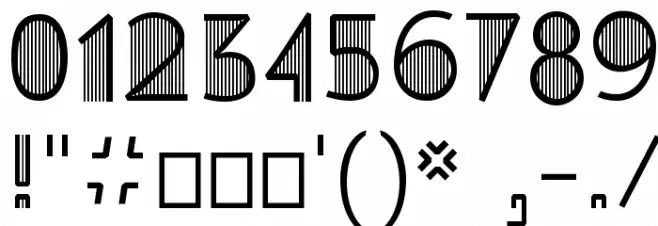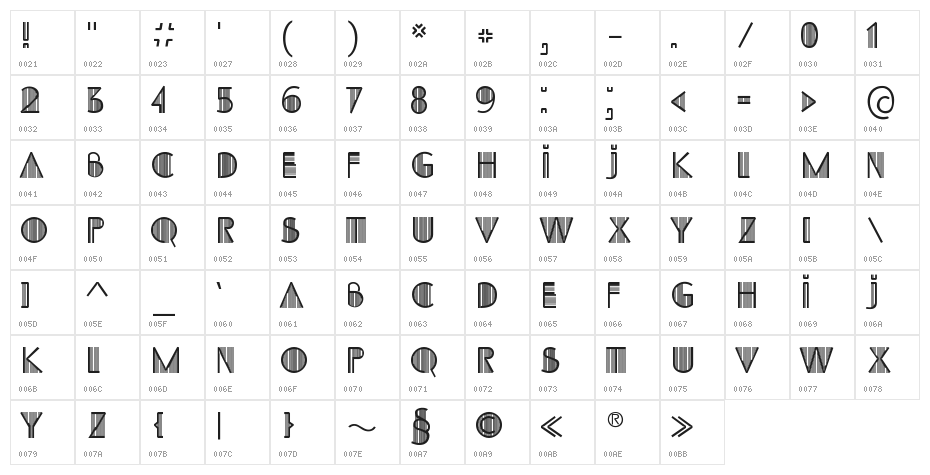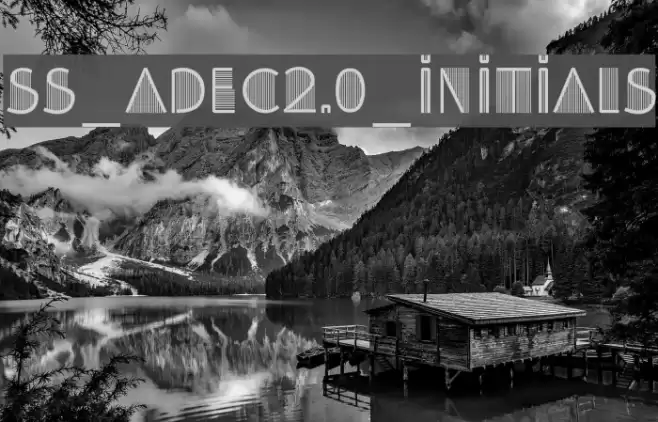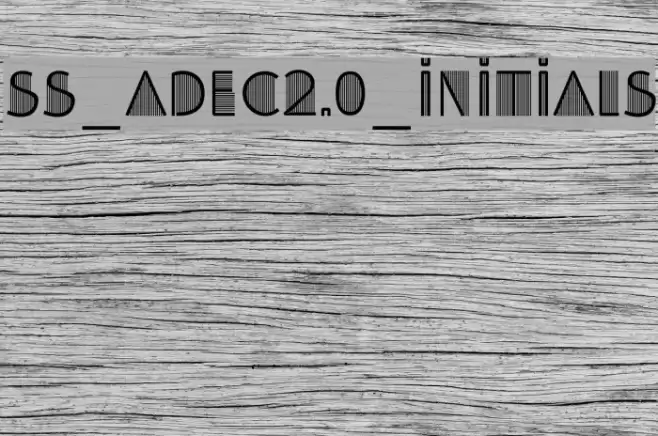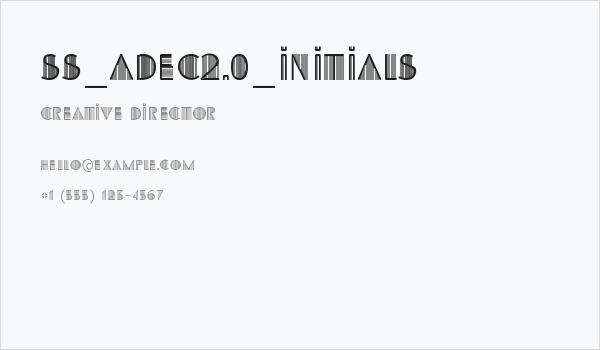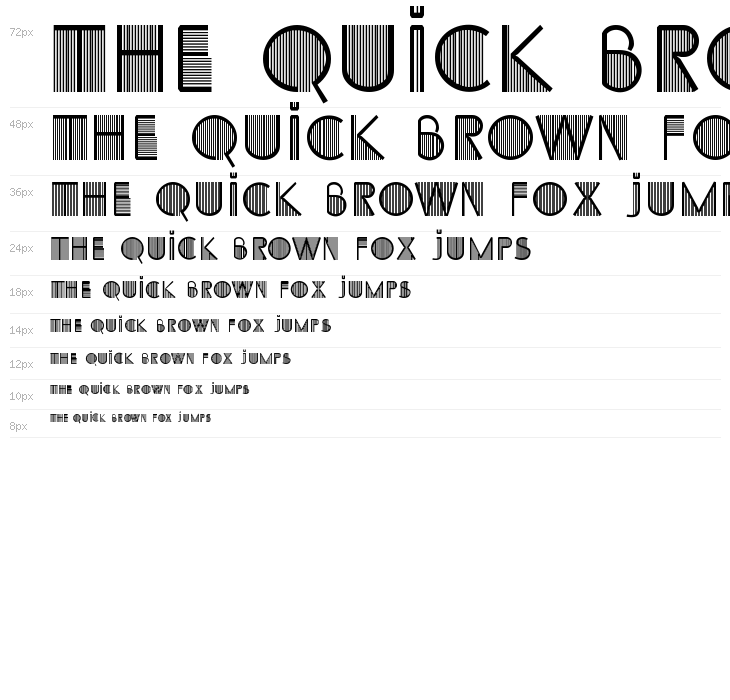
SS_Adec2.0_initials Font
SS_Adec2.0_initials Description
This font features a bold, decorative style with a unique striped pattern within each character. The uppercase and lowercase letters share a consistent design, emphasizing vertical lines that create a sense of movement and rhythm. The numbers and special characters follow the same aesthetic, making the font cohesive and visually striking. Its geometric shapes and clean lines give it a modern yet artistic feel, suitable for creative and eye-catching designs.
| Proposed Projects | Ideal for posters, branding, album covers, and any project requiring a bold, artistic statement. |